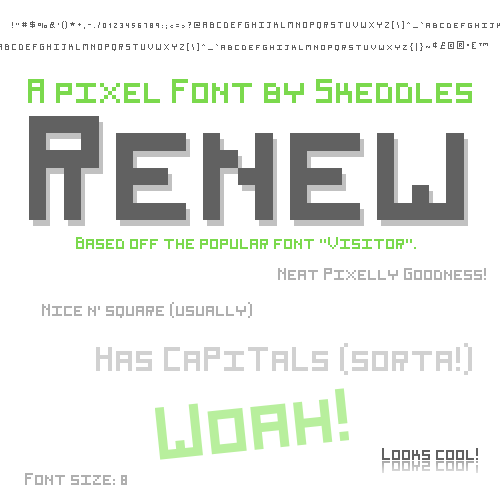
A pixel font based on another pixel font. --- All my fonts are free for personal and commercial use. If you use it I'd love to see. More fonts and other stuff at Skeddles.com |